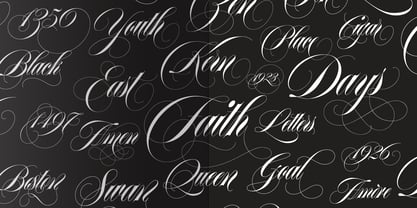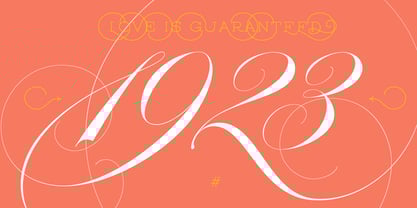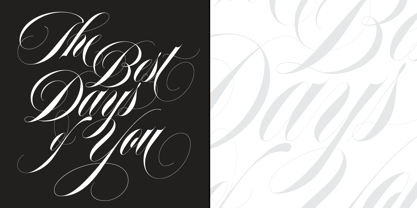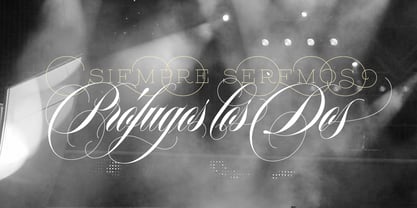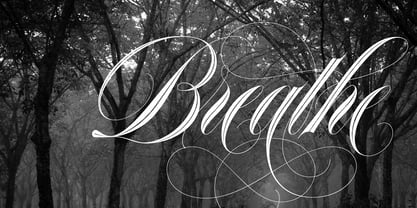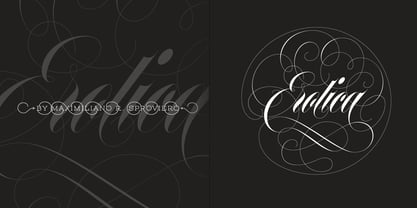
Erotica Font
This Erotica Font is perfect for romantic literature publications, passionate poetry collections, sensual art gallery exhibitions, intimate wedding invitations, romantic restaurant branding, sophisticated perfume packaging, luxury lingerie communications, passionate dance studio materials, romantic theater productions, and alluring lifestyle applications.
What makes this Erotica Font exciting is its passionate elegance that captures the sophisticated allure and romantic intensity of intimate artistic expression and sensual sophistication. The font features flowing letterforms with romantic characteristics that convey passionate sophistication, intimate elegance, and romantic allure. Its sensual character and passion-inspired design make it ideal for brands seeking to communicate romantic excellence, passionate sophistication, and intimate elegance in luxury lifestyle and artistic markets.
The Erotica Font family includes light, regular, medium, and bold weights with romantic alternates, passionate variants, and sensual flourishes. This comprehensive romantic font family provides designers with sophisticated typographic tools to create passionate compositions while maintaining the elegant character essential for luxury lifestyle and romantic artistic communications.
The alluring construction of Erotica Font showcases elegantly designed letterforms with romantic proportions that ensure exceptional sophistication across all luxury applications. Its passionate appearance and romantic character create memorable impressions while maintaining the readability necessary for effective romantic communication and luxury lifestyle materials.
Professional designers appreciate how Erotica Font brings immediate romantic authenticity and passionate elegance to brand communications. The font's sensual nature allows organizations to communicate luxury romance and passionate sophistication while maintaining the professional quality necessary for effective positioning in luxury lifestyle and romantic entertainment markets.
The captivating appeal of Erotica Font makes it particularly effective for brands emphasizing romantic luxury, passionate artistry, and intimate sophistication. Its elegant character resonates strongly with audiences who appreciate romantic culture, passionate expression, and brands that represent the sophisticated allure and elegant passion of romantic luxury achievement.